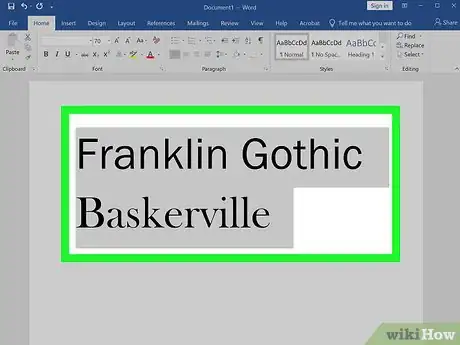
Sure, you can choose a font simply by clicking the drop-down menu on your word processor and picking the style that catches your eye. However, you should think of choosing fonts like choosing outfits. Just as your clothing choices make a particular impression at a job interview, first date, or funeral, so too do your font choices for a research paper, restaurant menu, or webpage. When choosing a font for branding, signage, or documents, consider both the immediate impression it makes and its readability based on the way you’re using it.
Method 1 of 4:Selecting Fonts for Your Brand
1Choose branding fonts based on first impressions. Think of fonts like you do clothing—tuxedos and ballgowns make a different impression than worn-in jeans and beat-up sneakers, and different fonts likewise make different impressions. When you’re looking at a selection of fonts, think about the immediate impression each one makes on you, and consider the likely impression each would make on your intended audience. Then, ask yourself if this is the impression you want your text to make.[1]
- Some well-known fonts have earned general reputations—Helvetica is clear but a bit dull, Garamond is traditional but maybe too old-fashioned, Times New Roman is a safe choice but quite generic. However, it’s really up to you do decide what type of impression each font makes in terms of how you intend to use it.
- Just like with clothing, some people can pull off using Verdana font, while others can’t—and very few can pull off using Comic Sans!
2Use a font “family” with several variations for an overall branding strategy. If you’re picking a font for a one-time effort—typing a letter to a friend, etc.—you can choose pretty much any font that makes the right impression. However, if you’re selecting a font for ongoing use—for instance, as part of a branding strategy for your small business—choose one that has a large “family” of slight variations suited to different purposes.[2]
- That way, you can use the same font family across your entire brand, but utilize the variations within the family for signage, flyers, logos, and so on.
- In Google Docs, for example, both Montserrat and Merriweather fonts offer a lot of variations in letter thickness and other factors.
3Aim for either correspondence or contrast when using multiple fonts. If your intended use calls for multiple fonts, they should be either similar-but-distinguishable (correspondence) or appealingly different (contrast). Don’t use two fonts that are so similar that your reader gets caught up trying to figure out if they’re the same or different.[3]
- For example in Microsoft Word, Franklin Gothic and Baskerville correspond nicely, while Gill Sans and Garamond make an appealing contrast in fonts.[4]
4Break the “rules” of using fonts as you see fit. If you read enough webpages, you’ll come across several “rules” for using fonts—for example, that you should use as few fonts as necessary, and that you should never use more than three fonts. However, most font-lovers agree that these should be treated more as recommendations than hard-and-fast rules. If using four or five fonts makes the impression you’re seeking, give it a try!
- At the end of the day, choosing fonts is both an art and a science. So follow the rules (“science”) except when it feels right to you to ignore them (“art”).
Method 2 of 4:Picking Fonts to Use on Signage
1Emphasize a font’s readability and the impression it makes on signage. Whether you’re posting flyers on telephone poles or designing a highway billboard, easy readability is essential on signage. Fortunately, once you get above 16-point font sizes, most serif and sans serif fonts are easy to read. From there, narrow your font choices to those that make the first impression you’re seeking.[5]
- So-called “slab serif” fonts like Courier, which have a somewhat blocky appearance that can project a slightly softened degree of authority, are very readable at sizes from 16-point to 24-point. This might be a good choice for making your sign feel important but not domineering or threatening.
2Use “display” fonts sparingly for maximum impact. As the name indicates, display fonts are meant for display purposes—for instance, to set apart a title or other very brief portion of text. They’re good at catching the eye, but aren’t appropriate for widespread use, especially in longer strings of text.[6]
- Syncopate is an example of a display font in Google Docs. It might, for instance, make a good header font for your restaurant menu, but readability would be an issue if you used it when describing individual menu items.